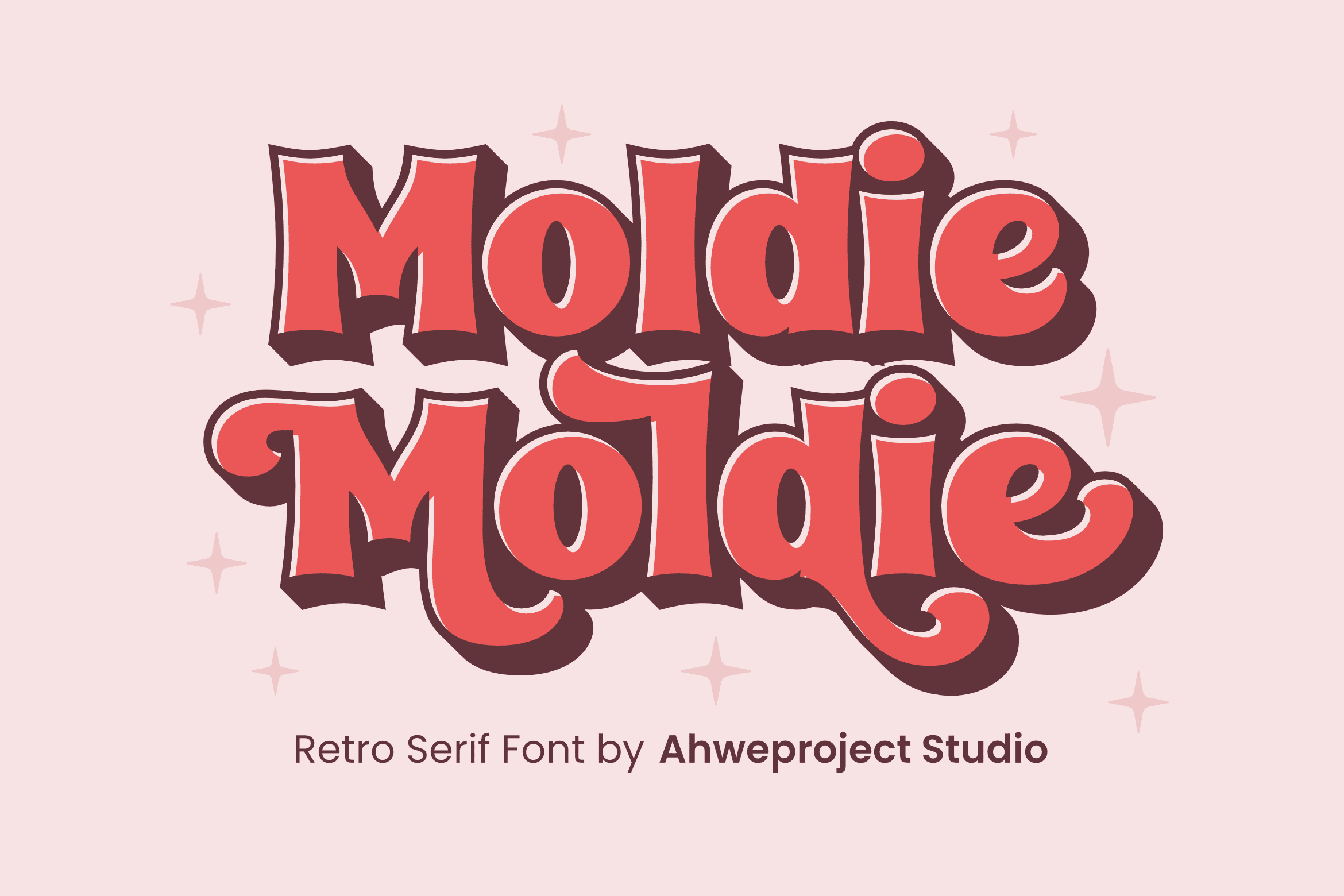
Moldie is a playful and bold display font that captures the charm of retro design with a fresh, modern twist. Its thick strokes, rounded edges, and dynamic curves give it a vibrant personality that draws attention instantly. Perfect for headlines, logos, and packaging, Moldie brings a nostalgic energy that adds both character and fun to any creative project.
One of Moldie’s standout features is its layered effect, which adds dimension and visual interest to your text. Combined with its soft serifs, the font maintains a friendly and approachable tone, making it ideal for brands or campaigns looking to express warmth and creativity. Its bold presence ensures your message won’t go unnoticed, whether used in print or digital formats.
Moldie’s versatility makes it suitable for a variety of design directions—from retro-themed posters to modern branding that calls for a playful edge. If you’re seeking a typeface that merges vintage charm with contemporary design needs, Moldie offers the perfect balance of style, readability, and personality.